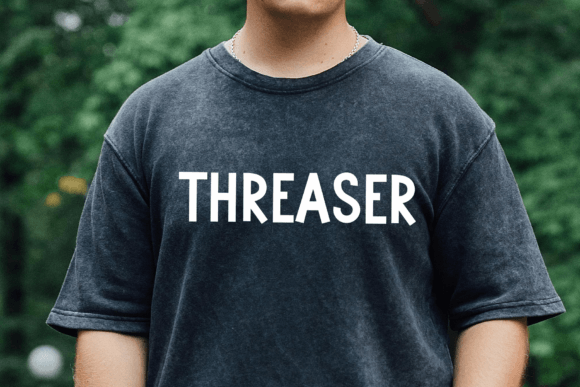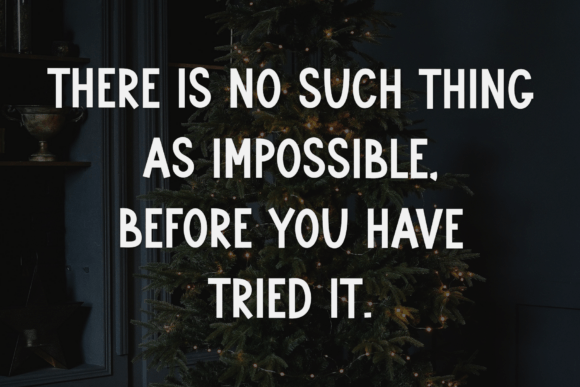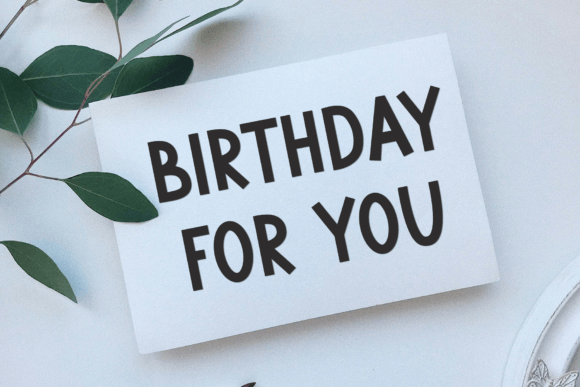
Introduction to Rainier Today Font
As you sit at your desk, staring at a blank canvas, waiting for inspiration to strike, you finally get that spark – a creative idea that can’t be contained. The excitement builds up, and you can’t wait to bring your vision to life. And that’s exactly where a high-quality font like Rainier Today Font comes in – a game-changer for designers like you.
This sweet and friendly handwritten font is more than just a design resource; it’s a key to unlocking your creativity. With its natural and unique style, Rainier Today Font is incredibly fitting to a large pool of designs, from watercolor illustrations to digital graphics. Whether you’re working on a free download project or a paid creative project, this font is sure to elevate your work.
Key Features of Rainier Today Font
- High-quality, modern sans-serif design perfect for any creative project.
- Designed to be highly legible, with clear lines and a clean aesthetic.
Honest Review: Rainier Today Font
I recently stumbled upon the Rainier Today Font and I must say it’s a great addition to any designer’s arsenal. As a design resource, it offers a high quality font that can elevate any creative project.
- ✨ The font has a clean and modern design that’s perfect for digital applications.
- ✨ The font comes in a transparent background, making it easy to integrate into any design.
While the Rainier Today Font is a great resource, it’s not without its limitations.
- ⚠️ The font may not be suitable for printing due to its digital design.
- ⚠️ It may not be as versatile as some other fonts on the market.
Overall, I’m impressed with the Rainier Today Font and I think it’s a great addition to any designer’s toolkit. It’s a high quality font that’s perfect for digital applications and can be easily integrated into any creative project.
Tips for Getting the Most Out of Rainier Today Font
To get the most out of Rainier Today Font, be sure to experiment with different font sizes and styles. You can also use the font in combination with other design elements, such as images and graphics, to create a cohesive and visually appealing design.
Common Use Cases for Rainier Today Font
Rainier Today Font is perfect for a variety of creative projects, including logos, business cards, and social media graphics. You can also use the font in presentations, documents, and other print materials to add a touch of professionalism and style.